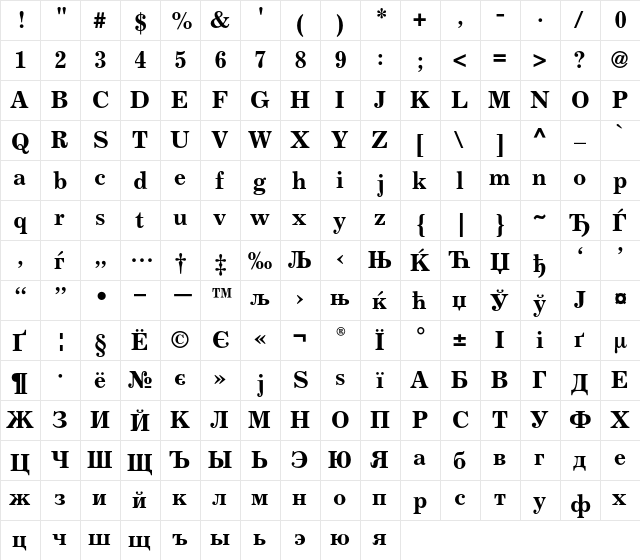
Excelsior Cyrillic Bold
Design Context for Excelsior Cyrillic Typeface
Excelsior Cyrillic is a composed and adaptable typeface that performs quietly and consistently across a wide range of design contexts. The heavy weight commands attention and anchors typographic hierarchies.
Pro Tip: Use Excelsior Cyrillic in both headline and body roles to test its range before committing to a single application.